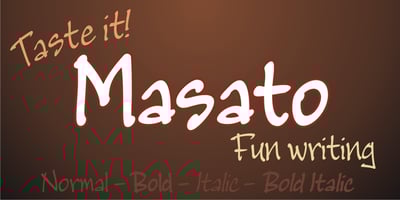
Masato
Masato font
Masato Font Family was designed by published by Corradine Fonts. Masato contains 8 styles and family package options. Based in Manuel Corradine’s handwriting, Masato is a very spontaneous font. It could be used in any informal project.